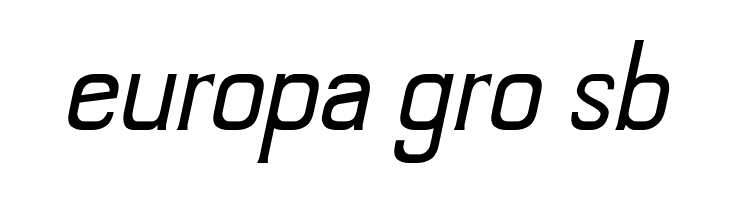
A sleek, modern italic font with consistent stroke width and dynamic style.
A bold, decorative font with a dripping effect, ideal for creative projects.
A playful font with letters in heart-shaped wheelbarrows.
A decorative font featuring dancer silhouettes integrated with each letter.
A decorative serif font with playful illustrations in uppercase letters.
A serif font with integrated ASL 'I Love You' signs in uppercase letters, blending classic and playful elements.
A decorative font with ornate floral borders around each character.
A bold, rounded font with integrated awareness ribbons in each letter.
A playful font with bold letters and charming baby illustrations.
The image contains teddy bear illustrations with letters, not a font.
A whimsical font with letters inside bear outlines, perfect for playful designs.
The image contains illustrations of beds, not a font.
A bold, impactful font ideal for headlines and banners.
A playful font with bee motifs integrated into bold, rounded characters.
A whimsical font with characters embedded in bronzed shoe illustrations.
A playful serif font with integrated car graphics on each letter.
A playful and decorative font with letters inside heart shapes, topped with a sleeping cat motif.
A decorative font with characters encased in crescent moons, featuring a celestial theme.
A whimsical font with letters integrated into penguin illustrations, perfect for playful designs.
A decorative font with intricate patterns and bold, artistic strokes.
A whimsical, decorative font with letters embedded in playful character illustrations.
A decorative font with characters enclosed in Celtic crosses, blending tradition with modern style.
A decorative font with letters set in gem-like shapes, offering a luxurious and elegant appearance.
A playful font with letters on tags attached to diaper pins, ideal for baby-themed projects.
A playful font with bold letters and integrated cartoon dog illustrations.
A playful, peep-themed decorative font ideal for Easter projects.
A playful font with characters inside golf ball designs, ideal for sporty themes.
A bold, decorative font with a tie-themed design and distressed texture.
A whimsical decorative font featuring a child fishing silhouette with integrated letters.
A playful, globe-themed decorative font with bold characters.
A decorative font with characters inside a US map silhouette featuring the American flag.
A bold, decorative font with whimsical goose illustrations integrated into each letter.